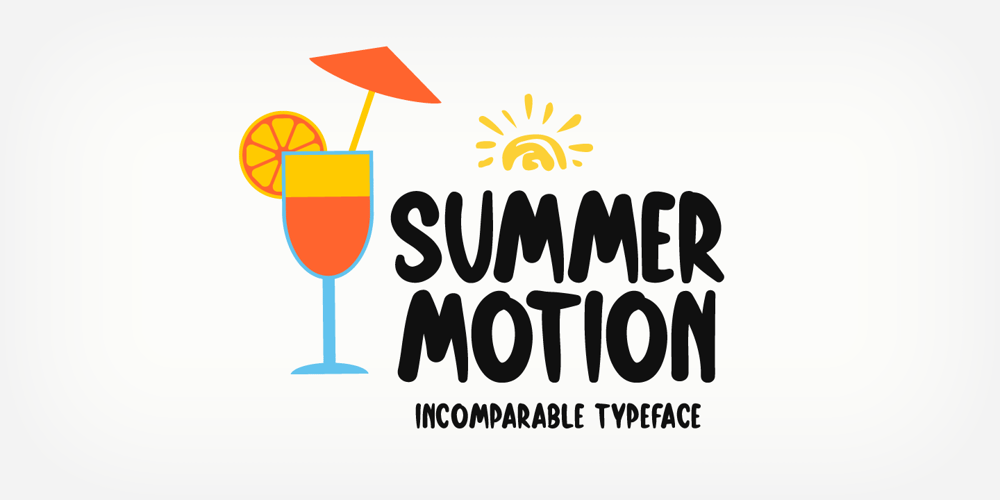
Summer Motion
Summer Motion font
Summer Motion Font Family was designed by Md Shohail Bhuian and published by Seemly Fonts. Summer Motion contains 1 styles and family package options. Summer Motion is a simple and friendly display font, featuring the perfect amount of trendiness. This original look will appeal to a wide range of crafty ideas, from letterheads and titles to stationery.